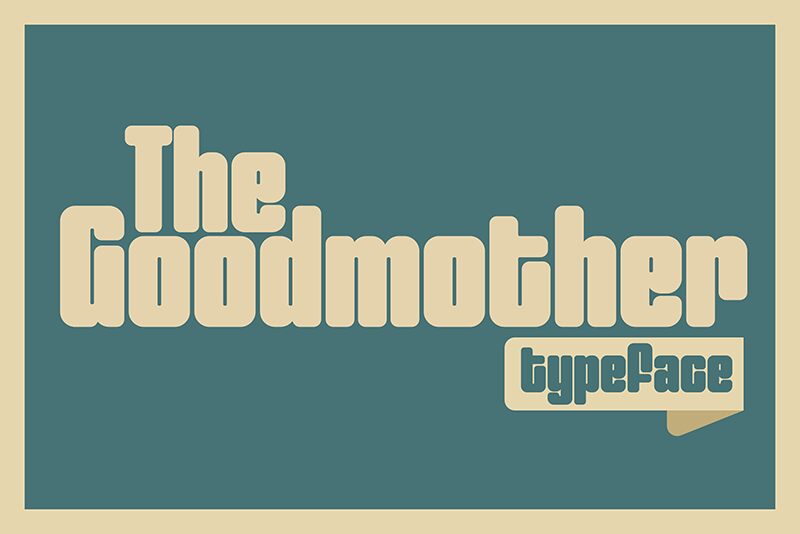
The Goodmother font by Toko Laris Djaja is a free retro typeface that is clean, rounded, and geometric. Despite having a vintage air, the font is still suitable to be used in modern design projects. Its relaxed and approachable appearance allows designers to create a strong and impactful visual element.
The Goodmother font can be used in logo design, branding, advertising, posters, magazines, and packaging. Other possible uses include social media visuals, website design, brochures, business cards, greeting cards, menus, certificates, and signage design.